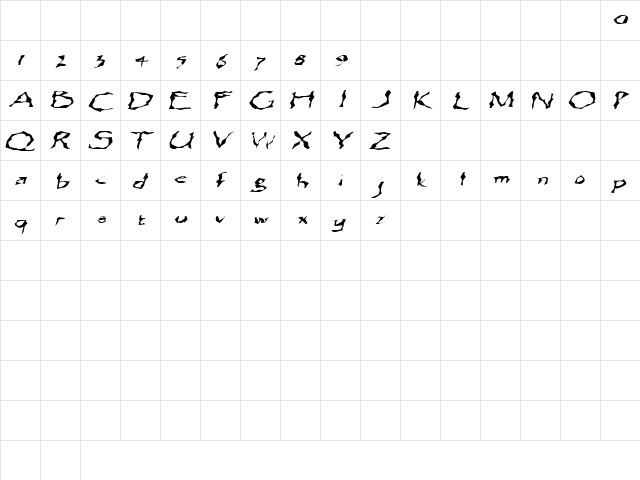
IntegrityExtended Italic
Design Context for IntegrityExtended Typeface
IntegrityExtended embraces imperfection — its rough, textured character adds raw authenticity to designs that want to feel lived-in and unconventional. Its italic angle brings a sense of urgency and motion to the letterforms.
Suited to punk-influenced zines, underground music branding, streetwear, and raw, anti-corporate design.